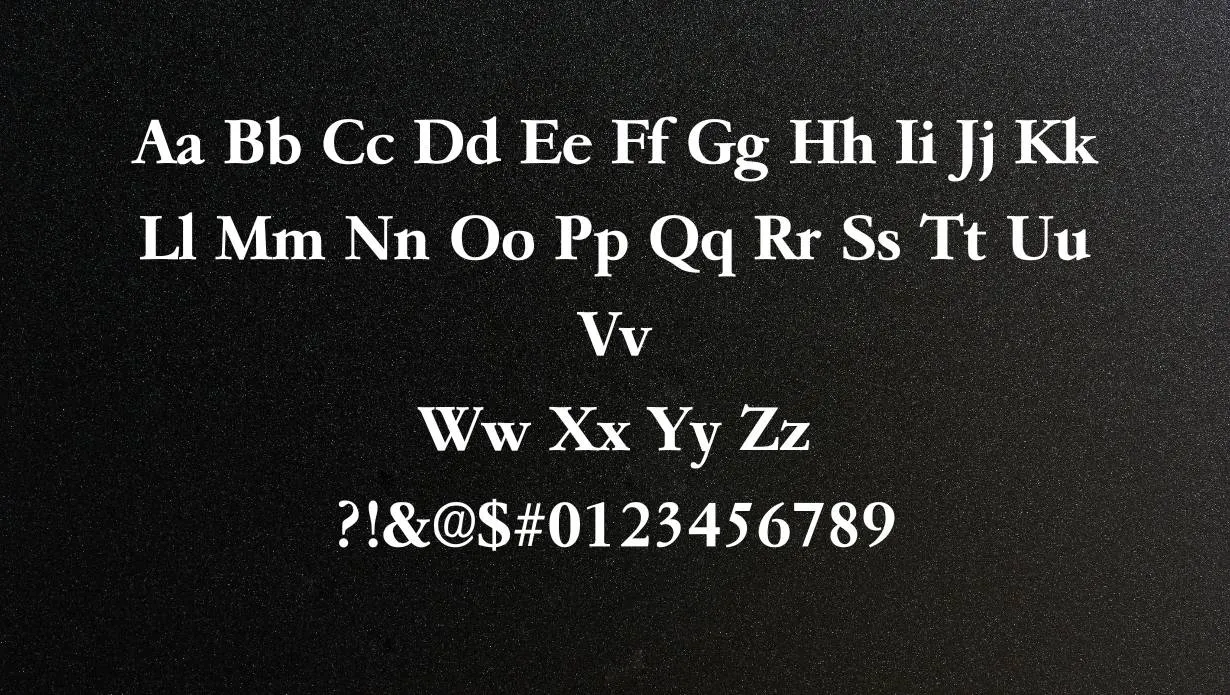
The font used in Scary Stories to Tell in the Dark is reminiscent of a storyteller, bringing a spooky vibe to your written words. Its eerie and haunting design is perfect for crafting spine-chilling book covers, creating creepy event posters, or injecting a sense of mystery into your Halloween branding.
| Name | Scary Stories to Tell in the Dark Font |
| Designer | Julie Staniland |
This font has a heavy weight and slightly condensed width, ensuring that your words send shivers down the reader’s spine. Imagine using the Scary Stories to Tell in the Dark font for a haunted house attraction, turning your text into a spine-tingling experience.